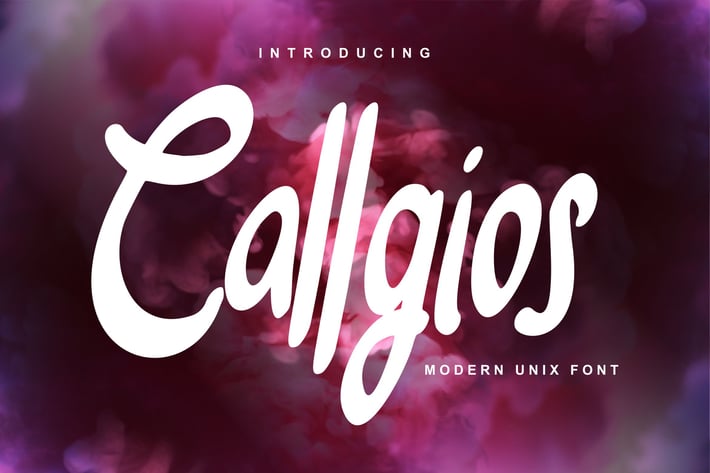
Callgios | Modern Unix Font
Callgios | Modern Unix Font with a calligraphy style, So beautiful on invitation like greeting cards, branding materials, business cards, quotes, posters, and more!